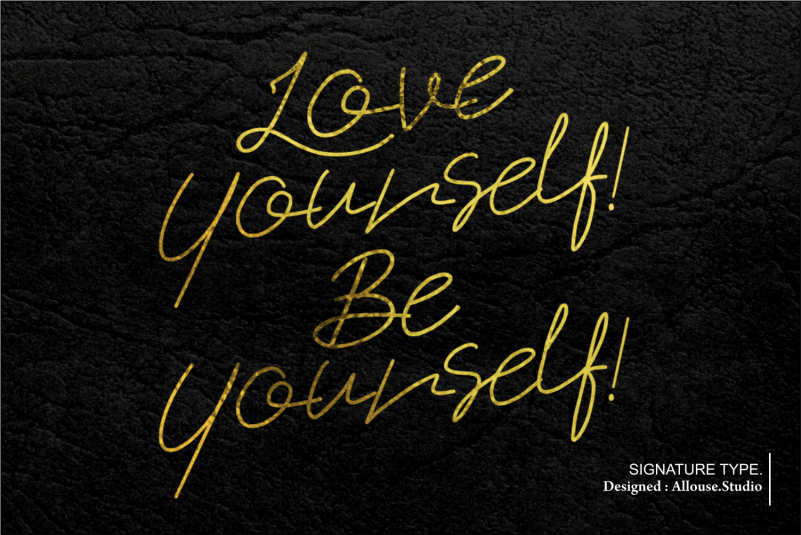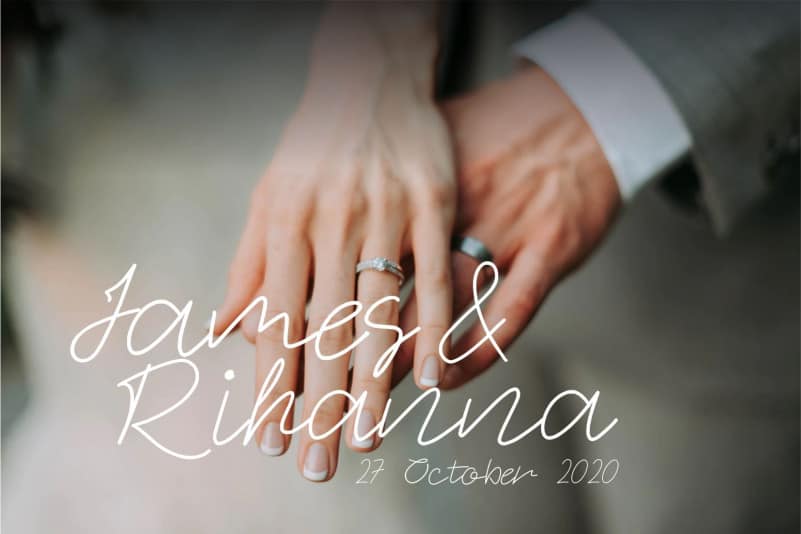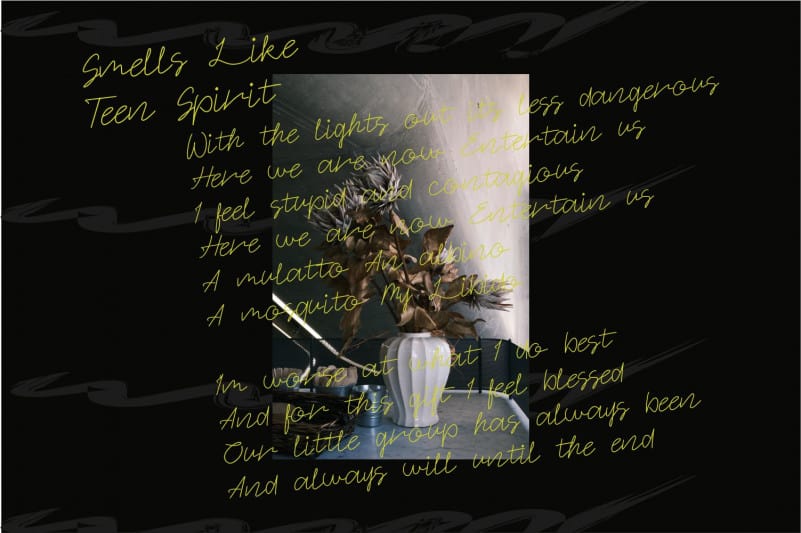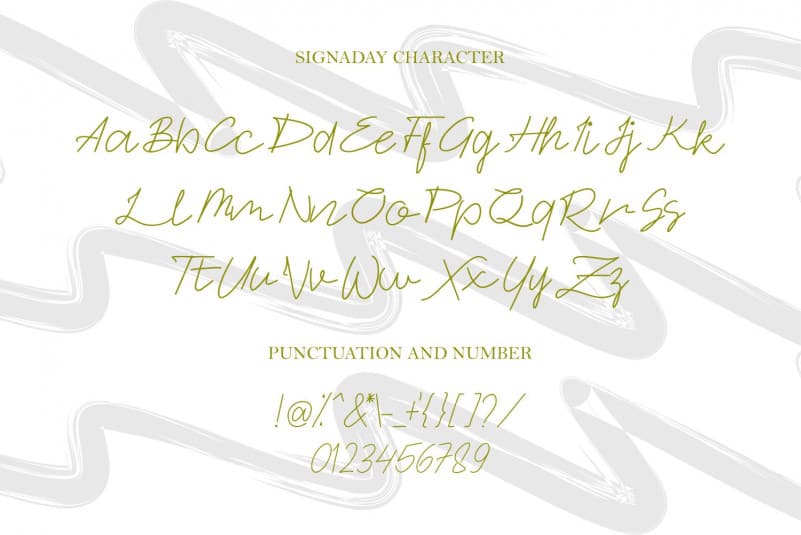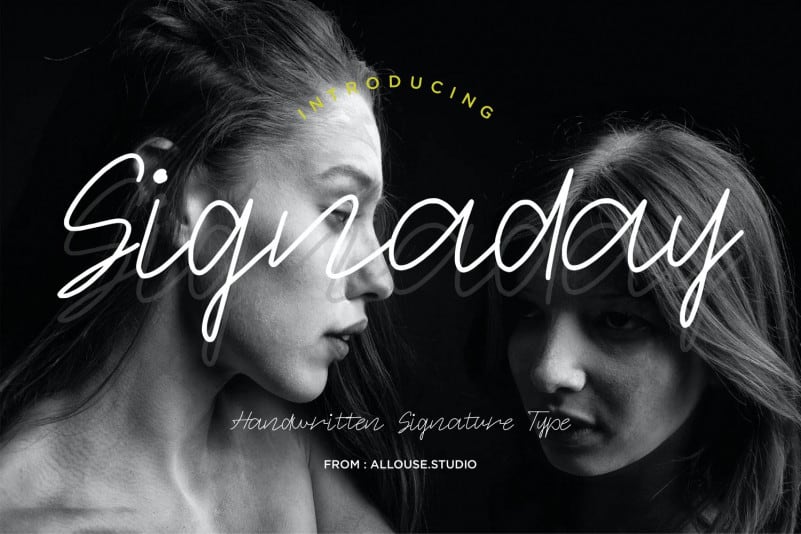
Signaday Handwritten Font is perfect for product packaging, branding project, megazine, social media, wedding, or just used to express words above the background.